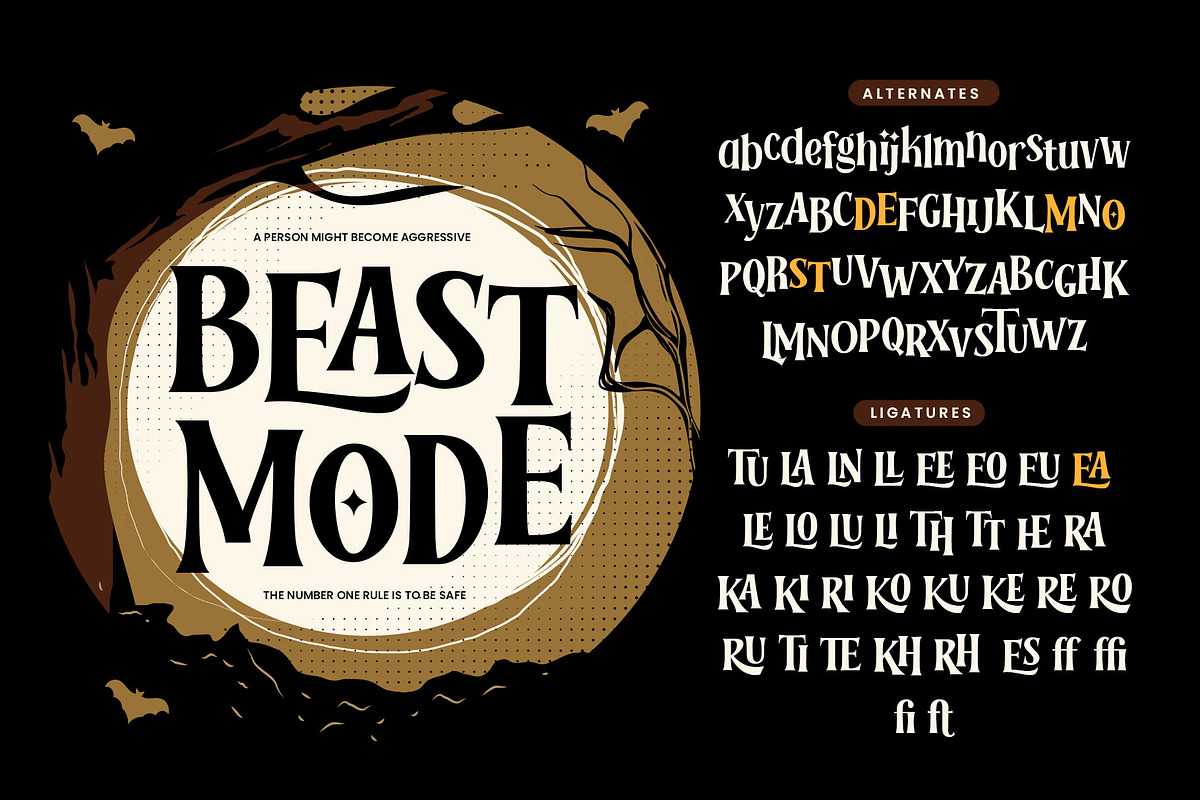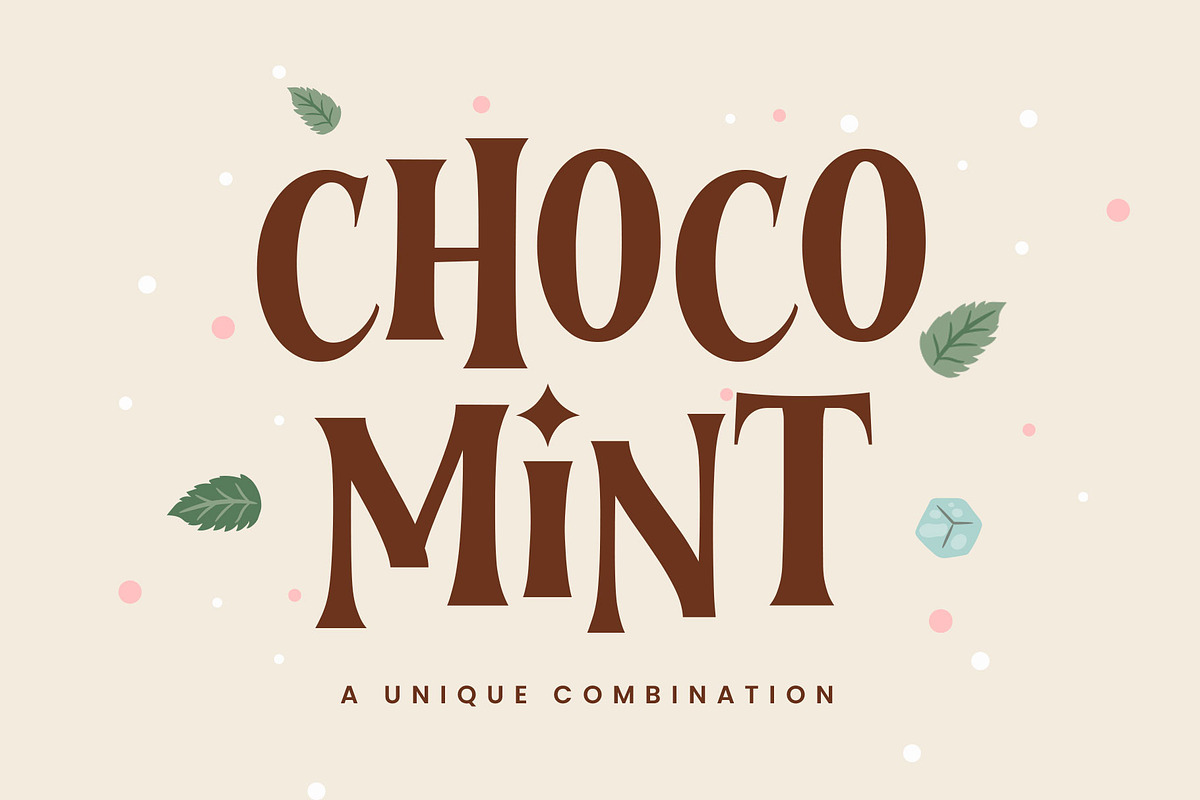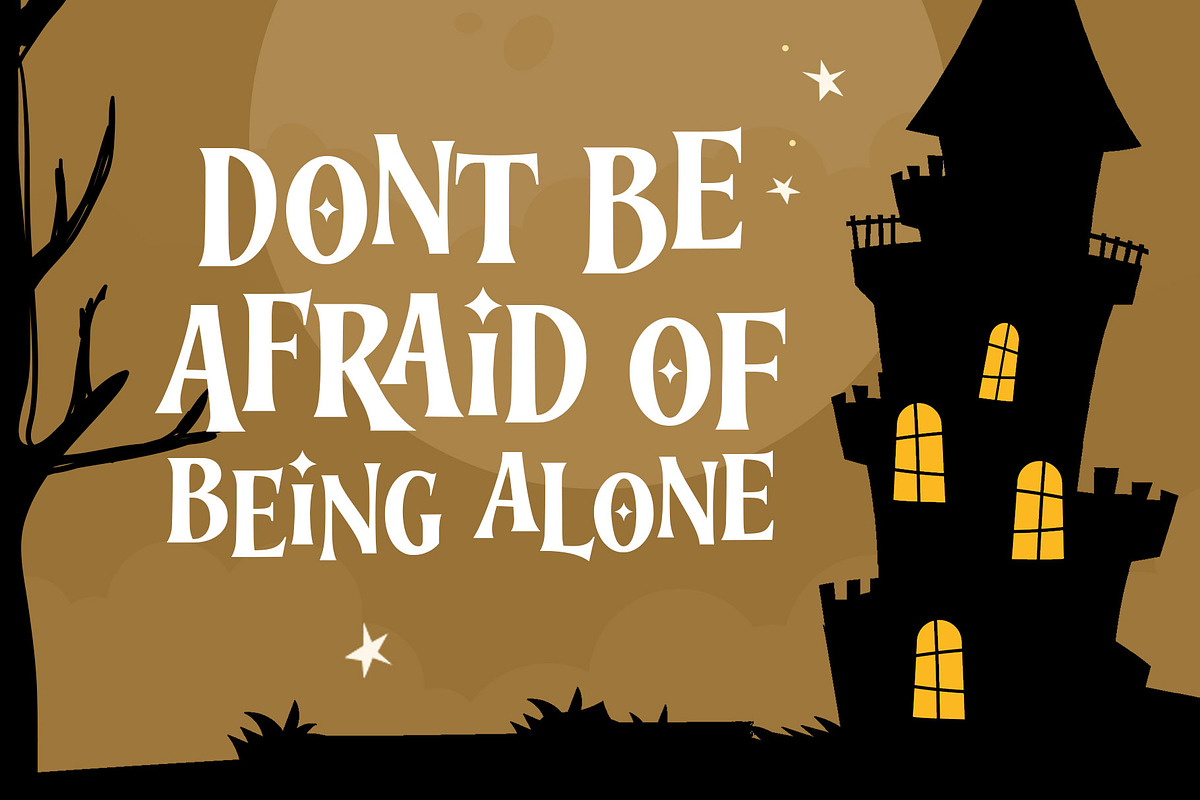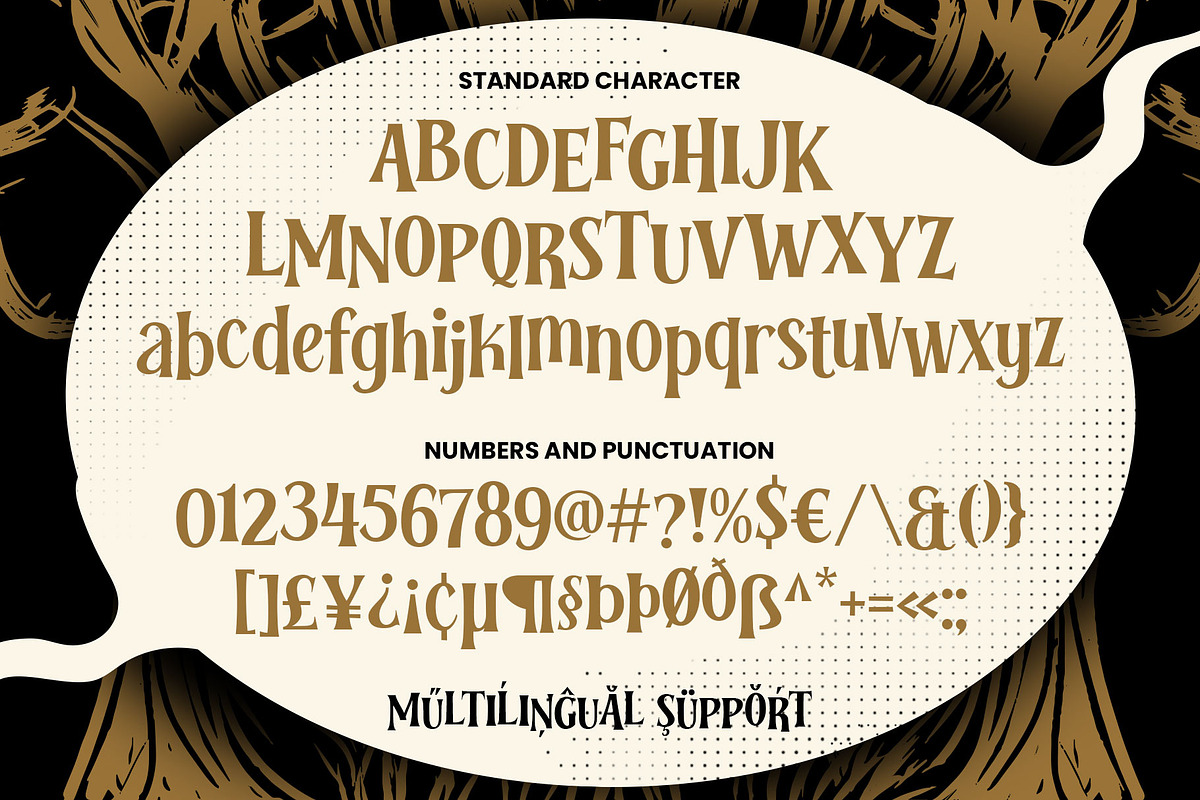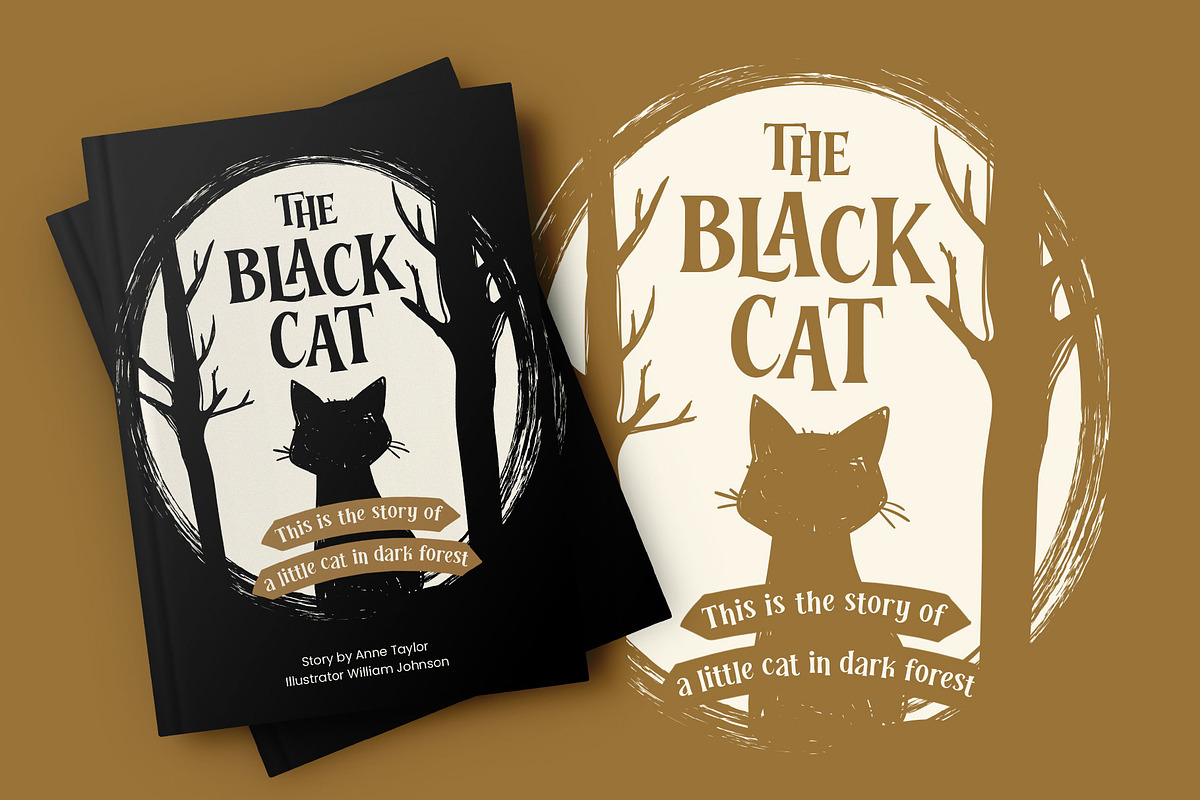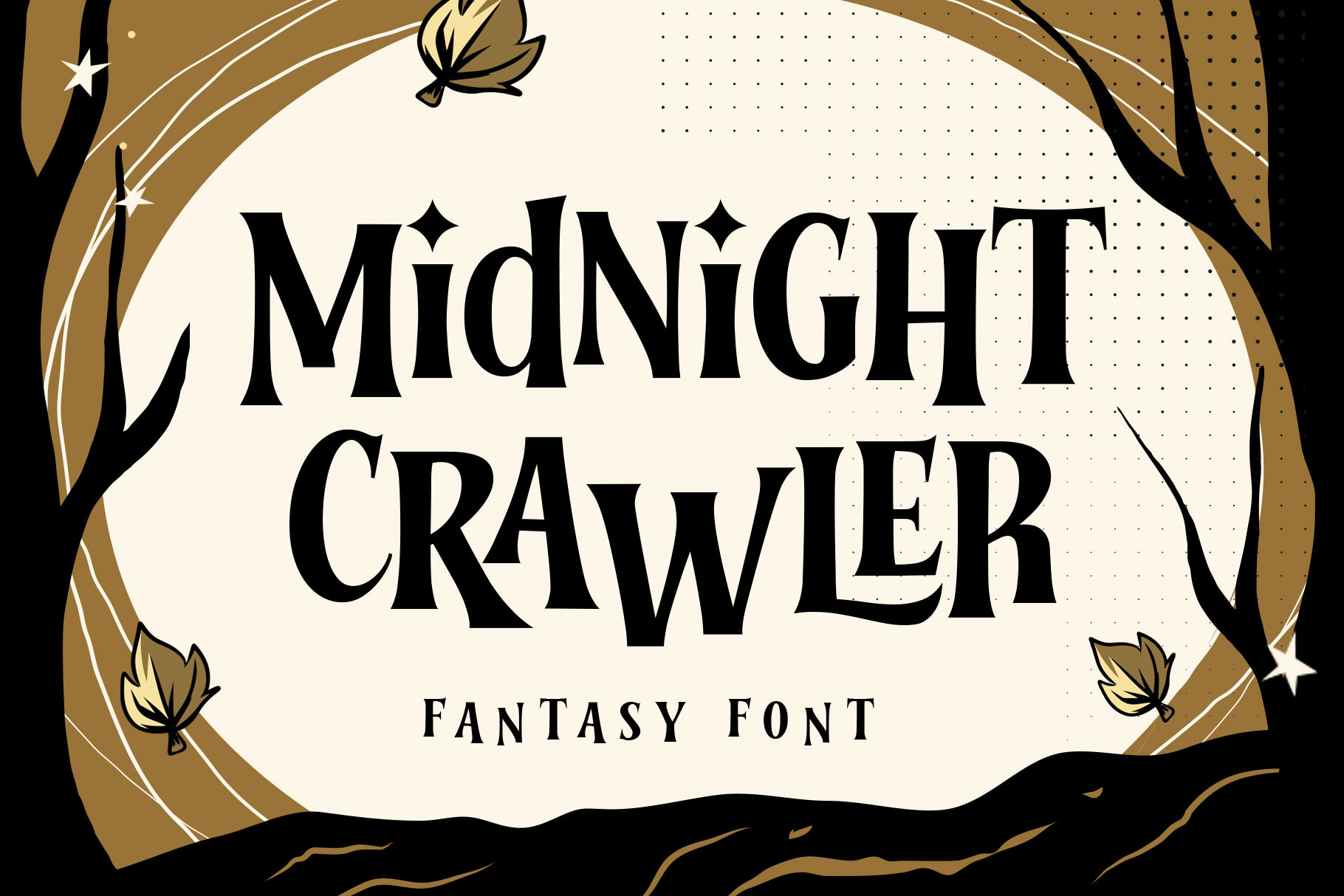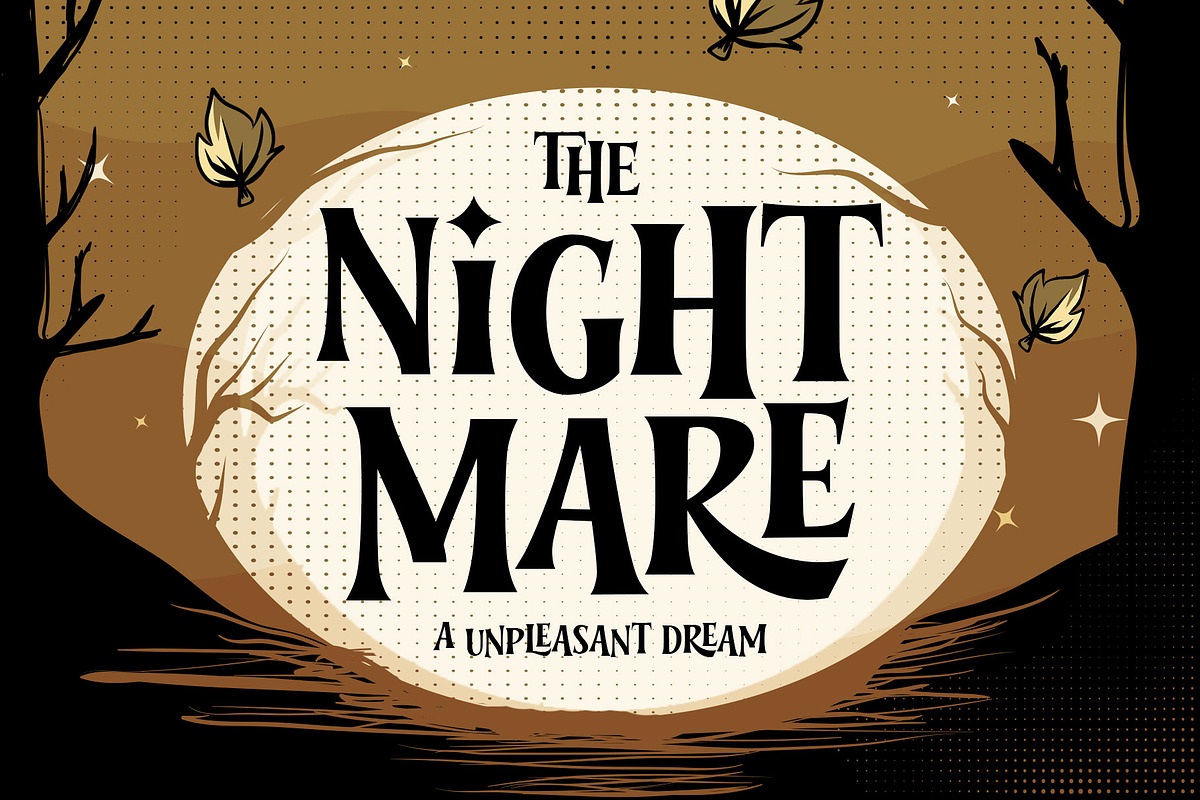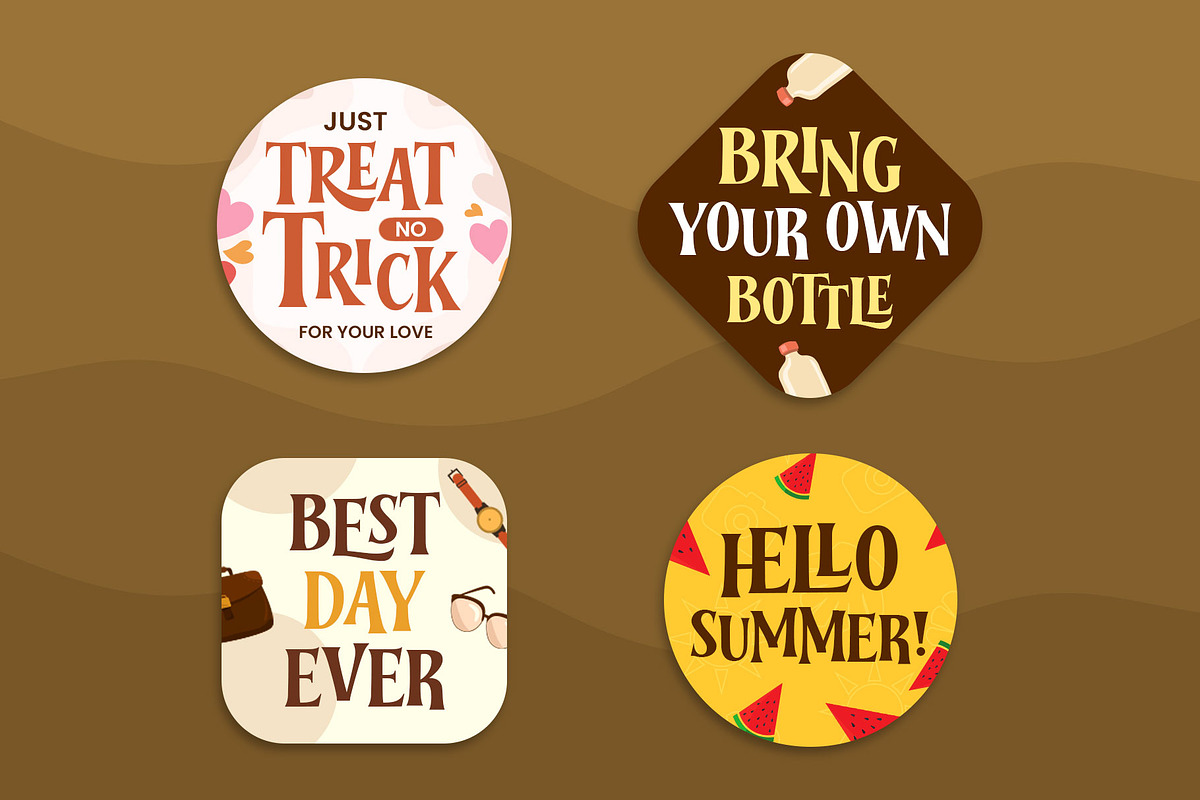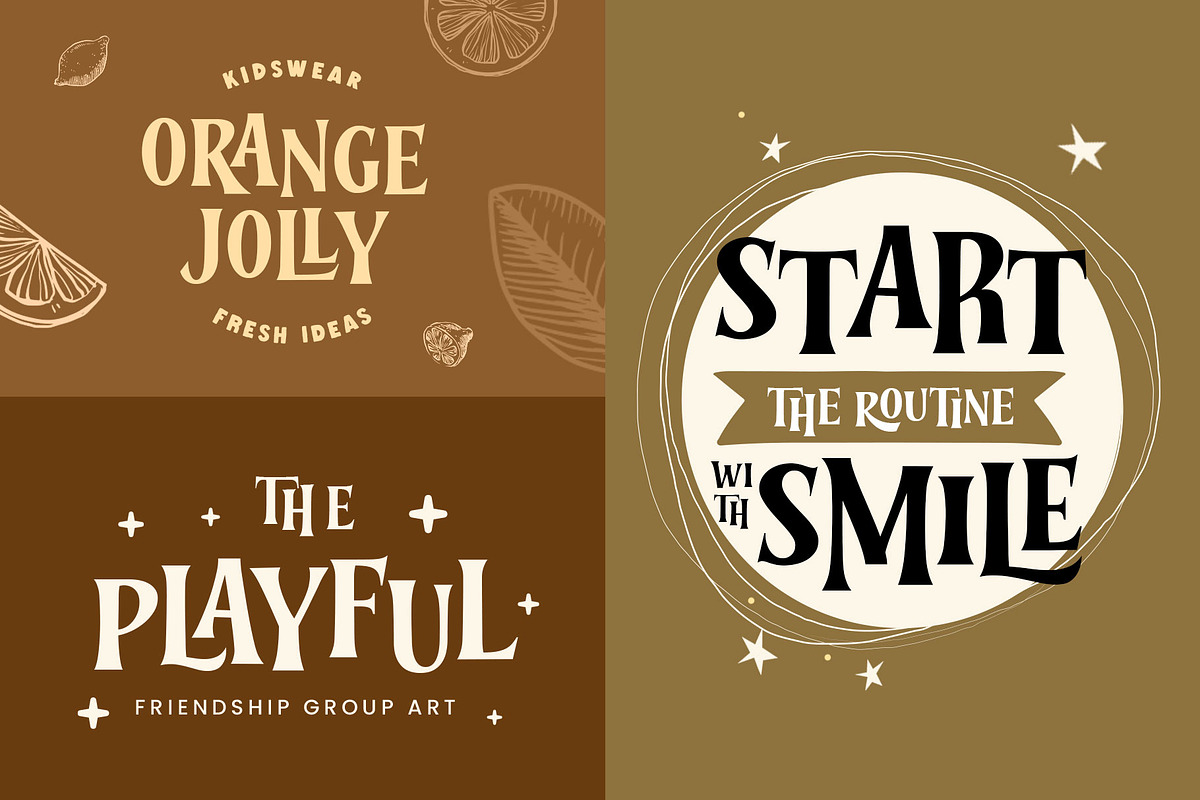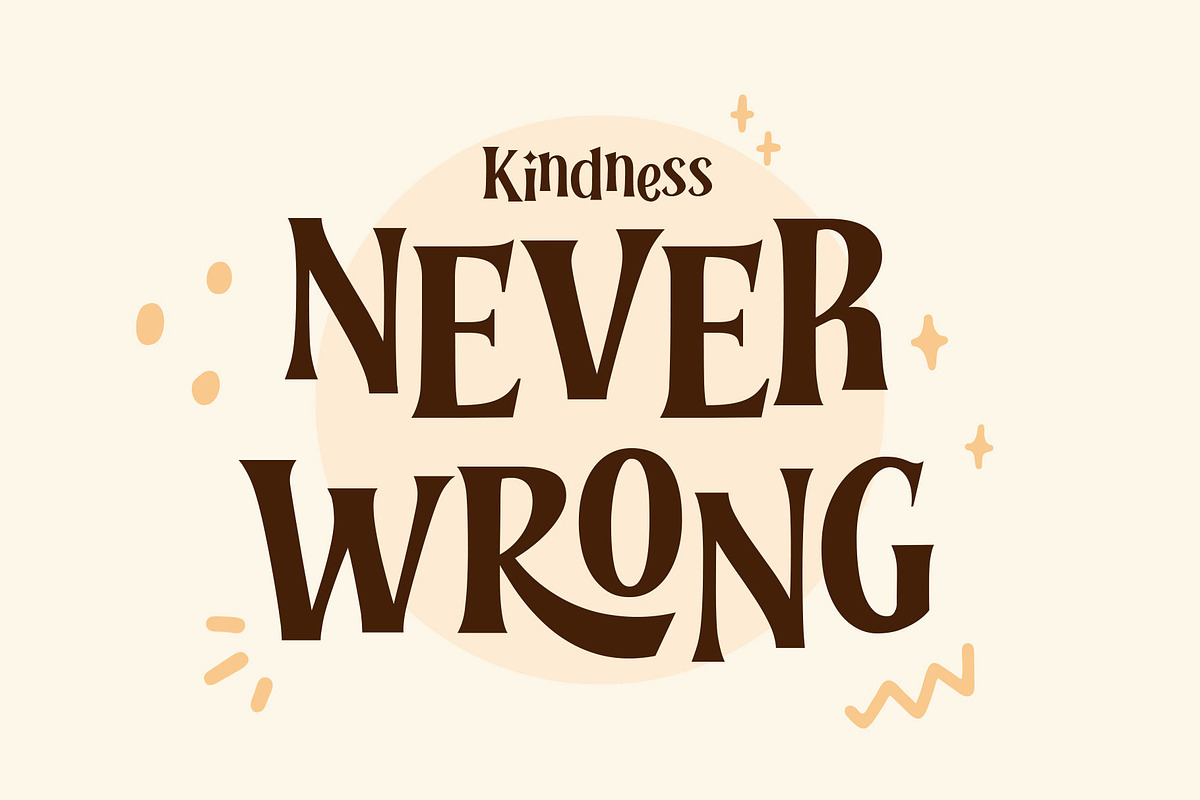
Nightmare Crawler - Horror Font
Introducing Midnight Crawler, a playful horror font. This font also has scary, spooky, joyful, and fun looks at the same time! Inspired by horror cartoons and fantasy movies. It's perfect for headings, posters, stickers, packaging, flyer, quotes, and more!
- Symbols & punctuation
- Stylistic alternates